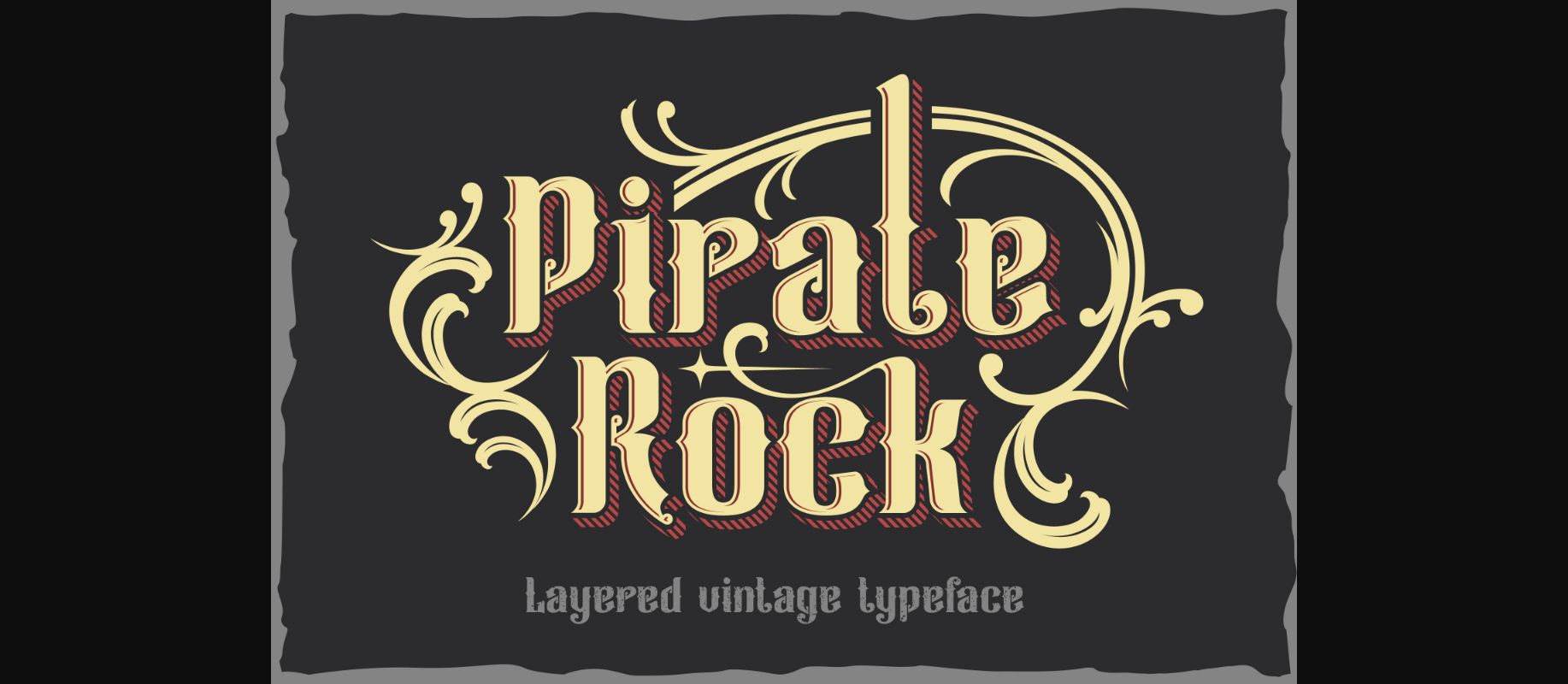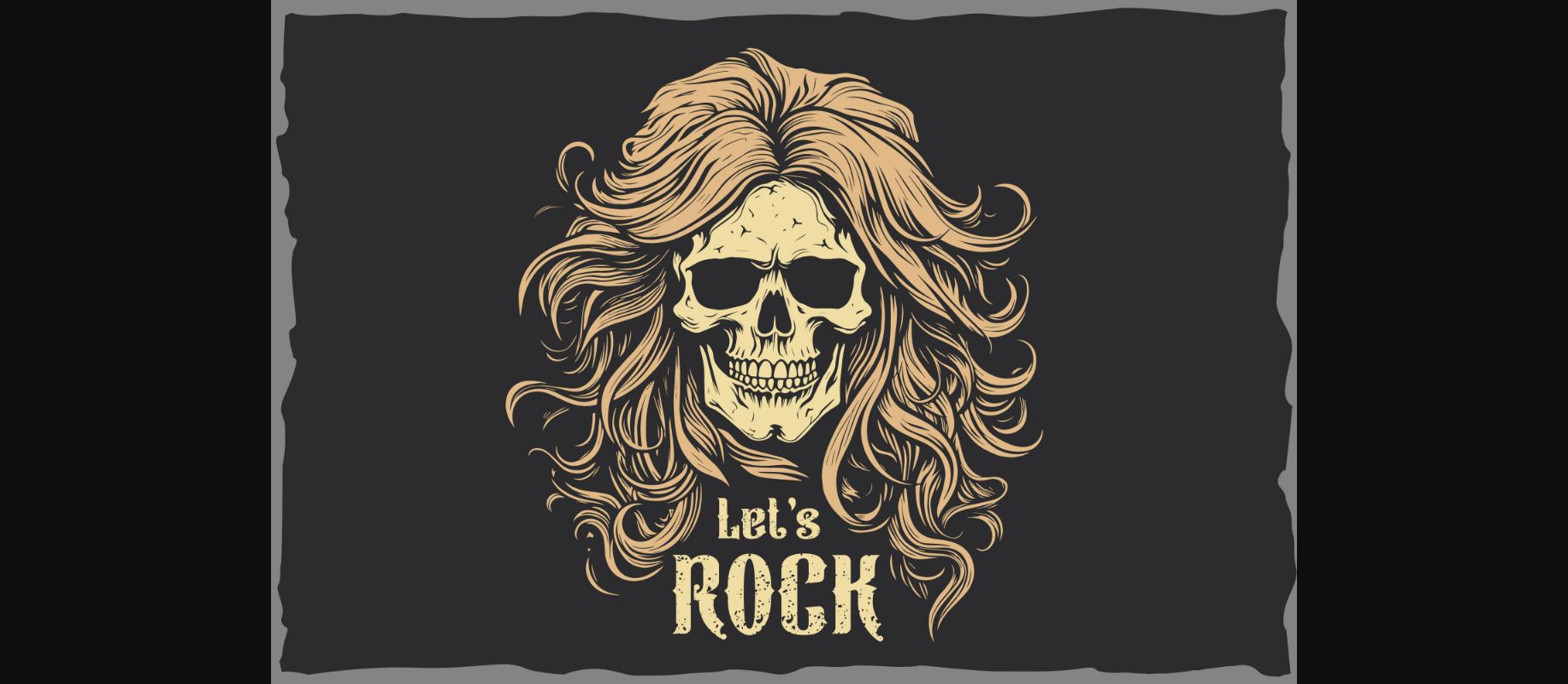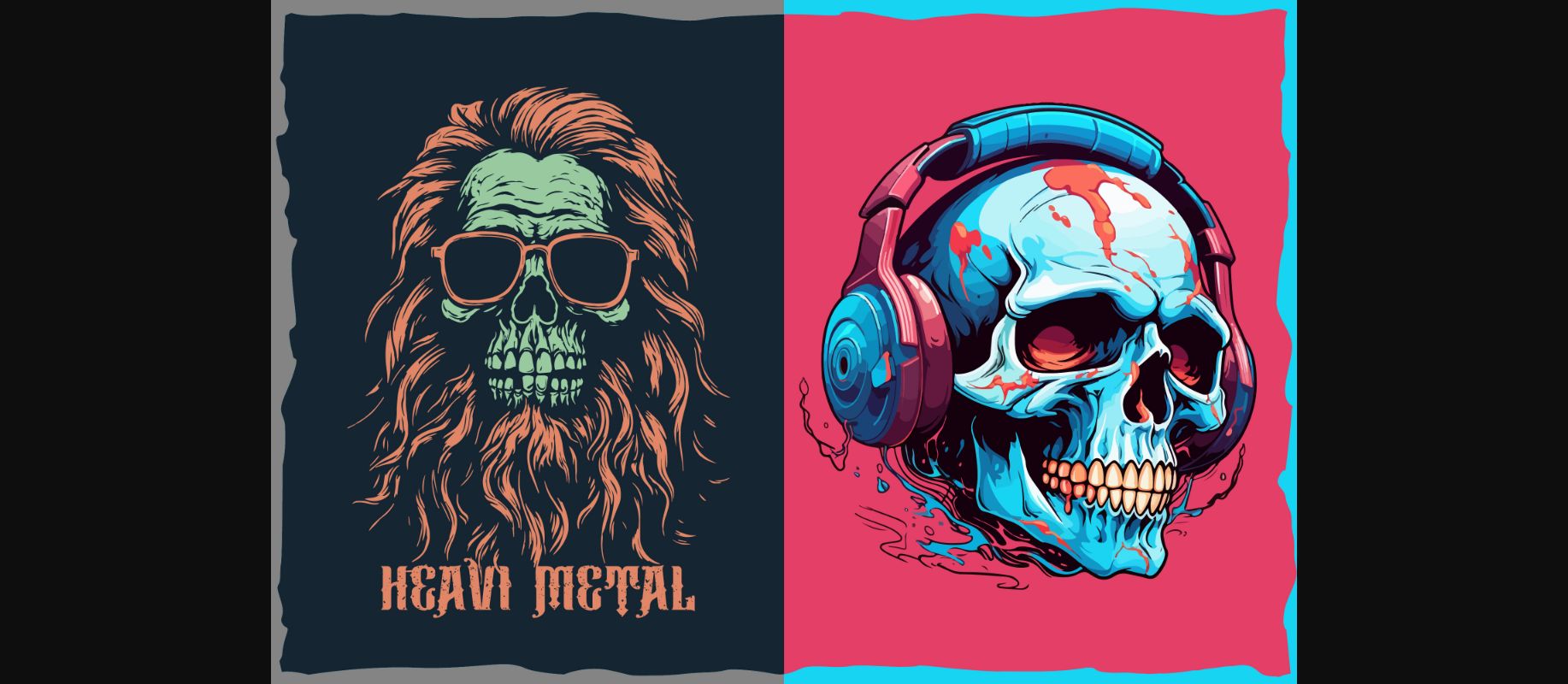
About Pirate Rock Font
Pirate Rock is a vintage layered font that adds a rugged, adventurous feel to your designs. With its worn edges and textured layers, it’s perfect for creating bold headlines, posters, and logos that command attention. Let Pirate Rock bring a touch of swashbuckling style to your projects, whether you’re crafting invitations or signage for your next adventure-themed event.